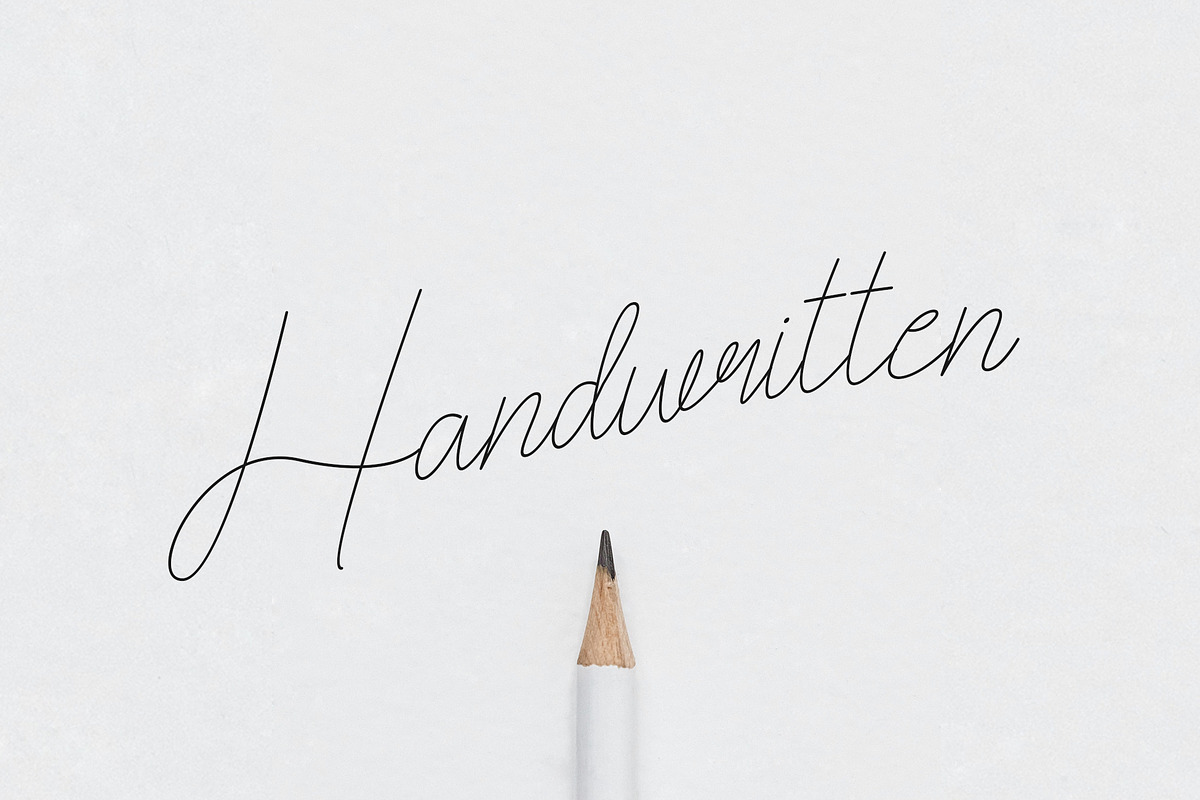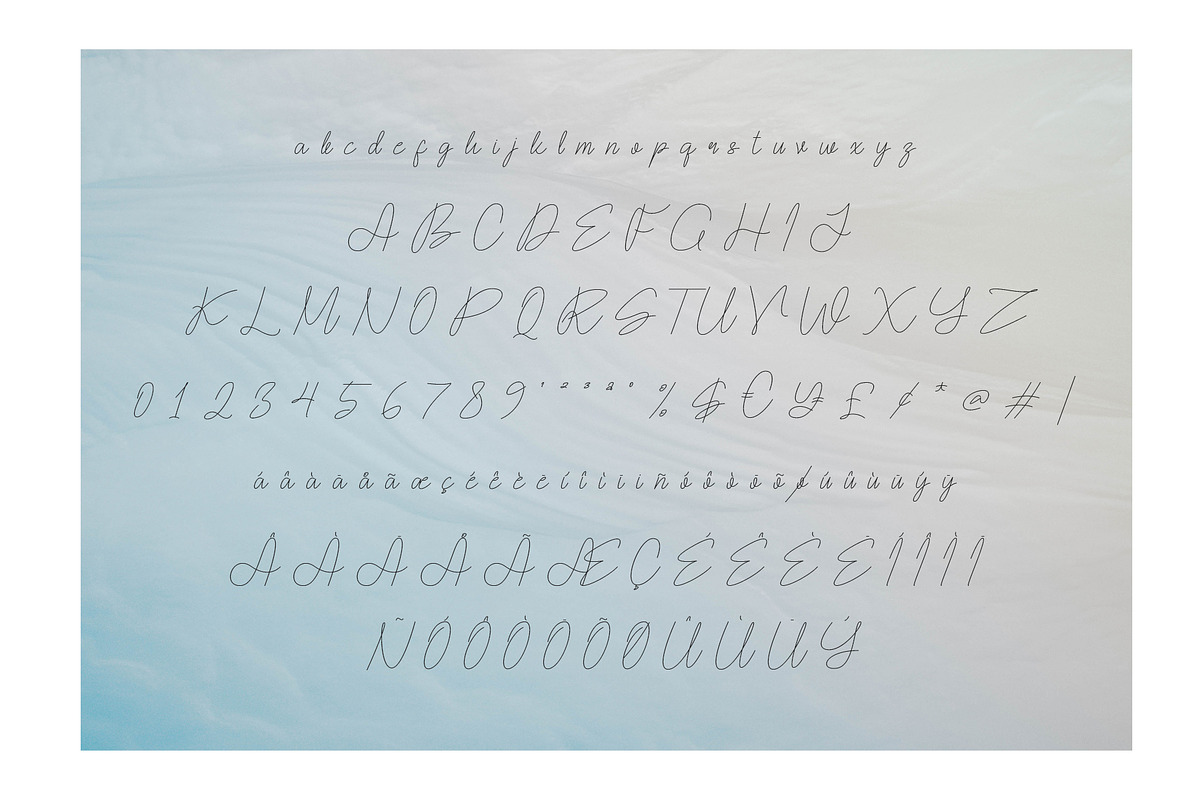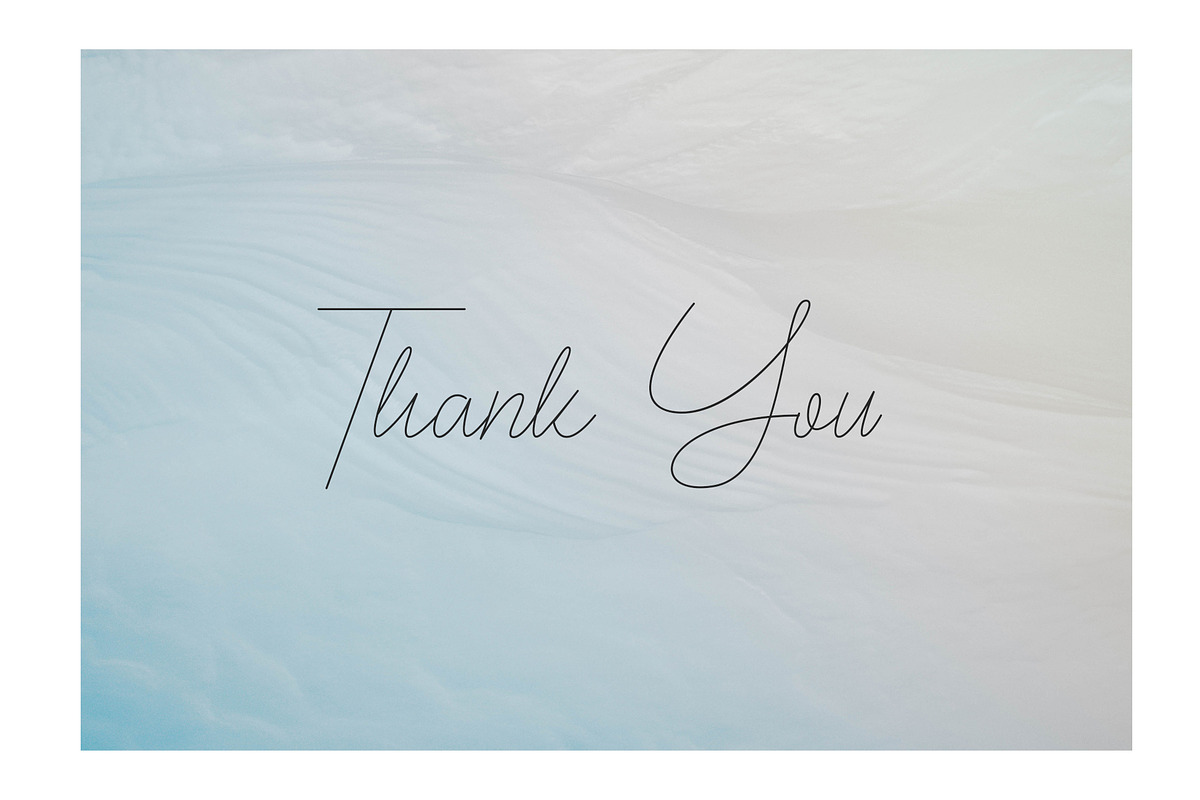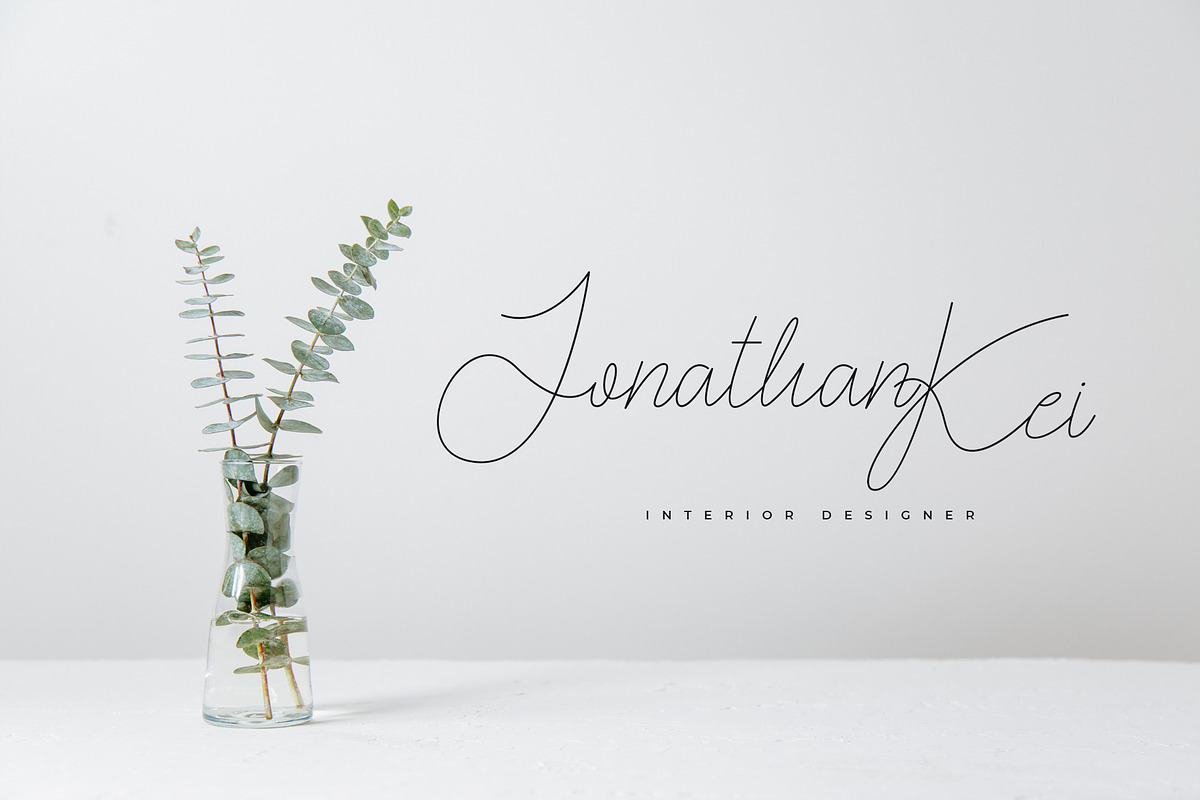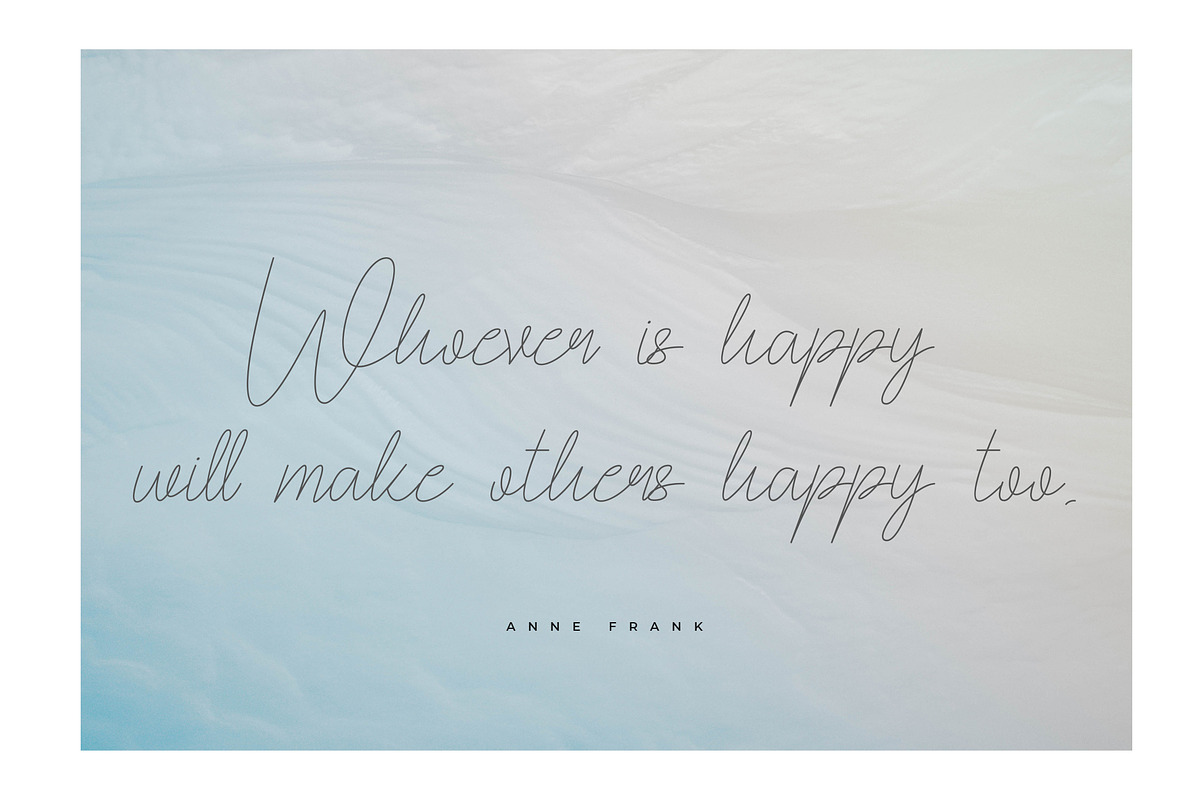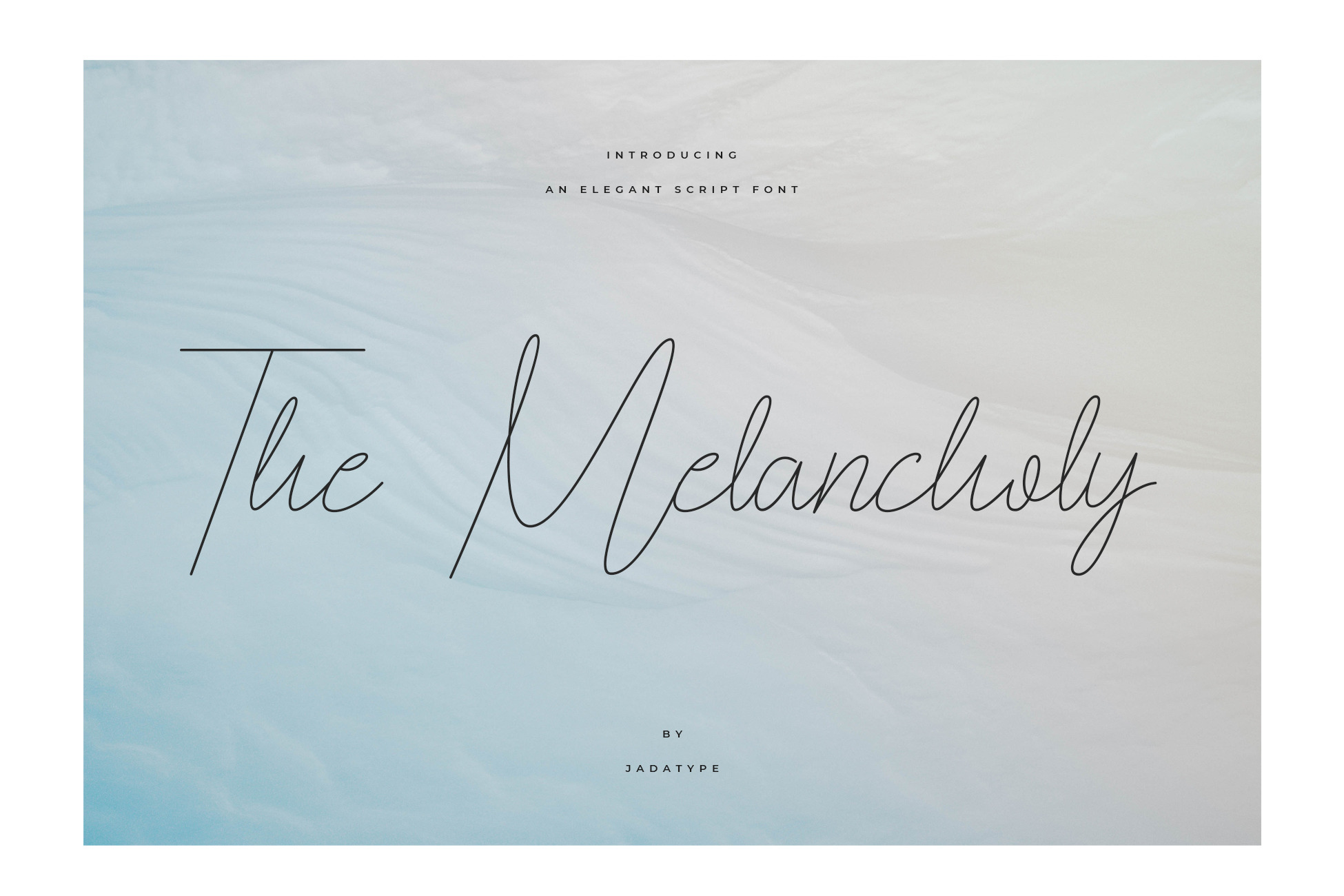
The Melancholy Font | Thin Script
The Melancholy is a delicate, thin script monoline font with graceful strokes and full multilingual support. Ideal for elegant designs like invitations and branding, it integrates smoothly with Adobe and Affinity software, ensuring easy installation and creative flexibility.